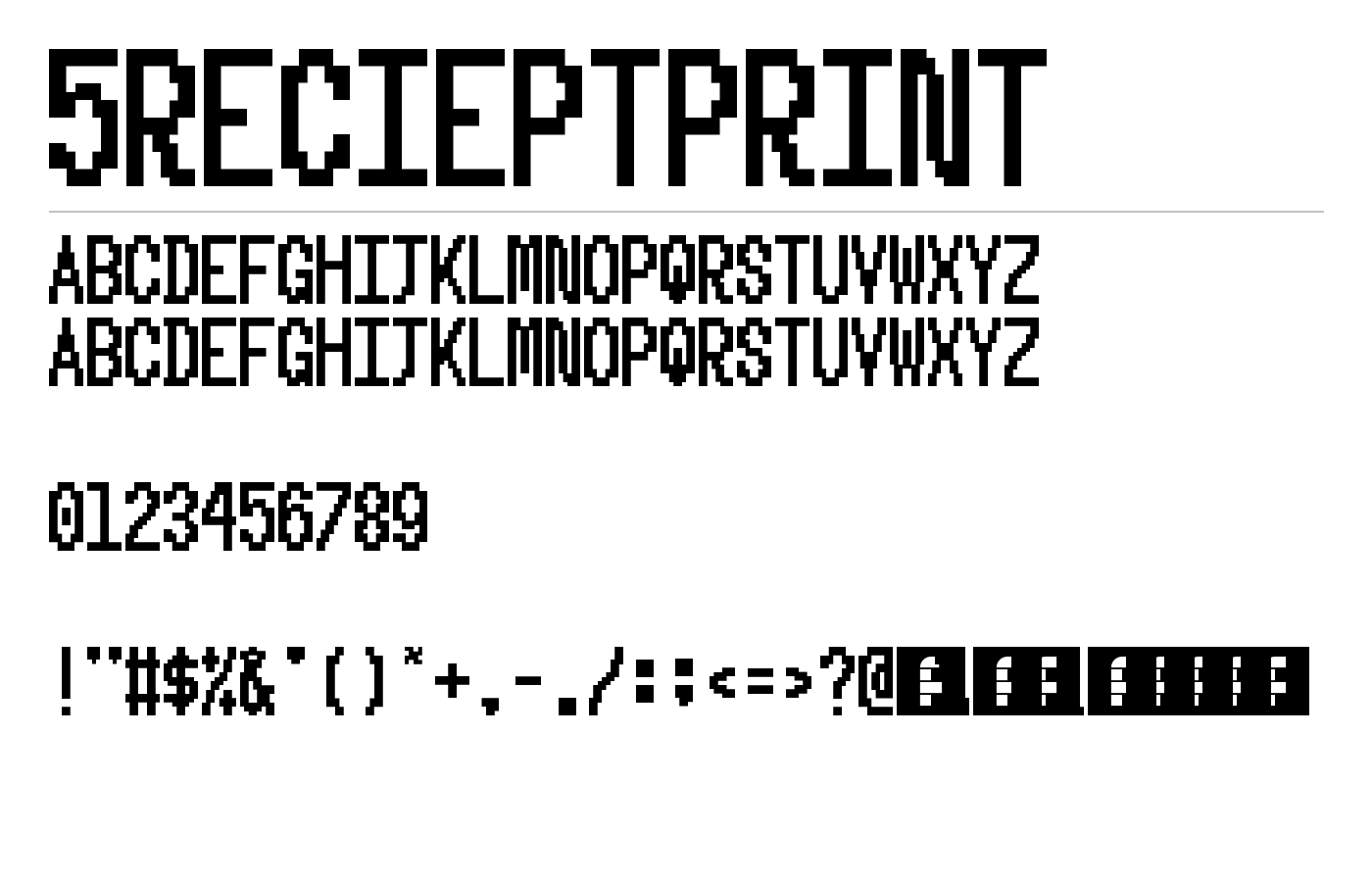
5Recieptprint is a pixelated sans serif font that evokes the nostalgic feel of old digital receipt printers with its blocky, monospaced design and sharp-edged strokes. Its condensed width and uniform weight create a mechanical, utilitarian look perfect for retro digital themes, tech-related designs, or projects seeking a vintage electronic vibe. This font works best for display use in logos, posters, or user interfaces where a distinctive, techy impression is desired.
5Recieptprint Font
About 5Recieptprint Font